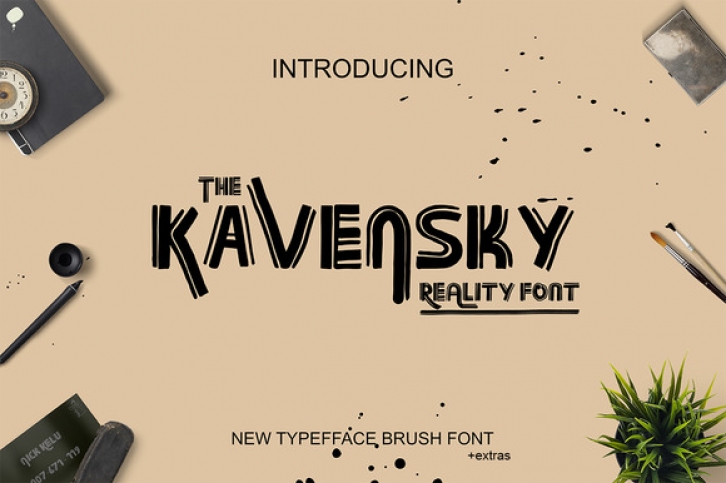
Kavensky is a new typeface brush font! Perfect for designing invitations, greeting cards, branding materials, business cards, quotes, posters and more!